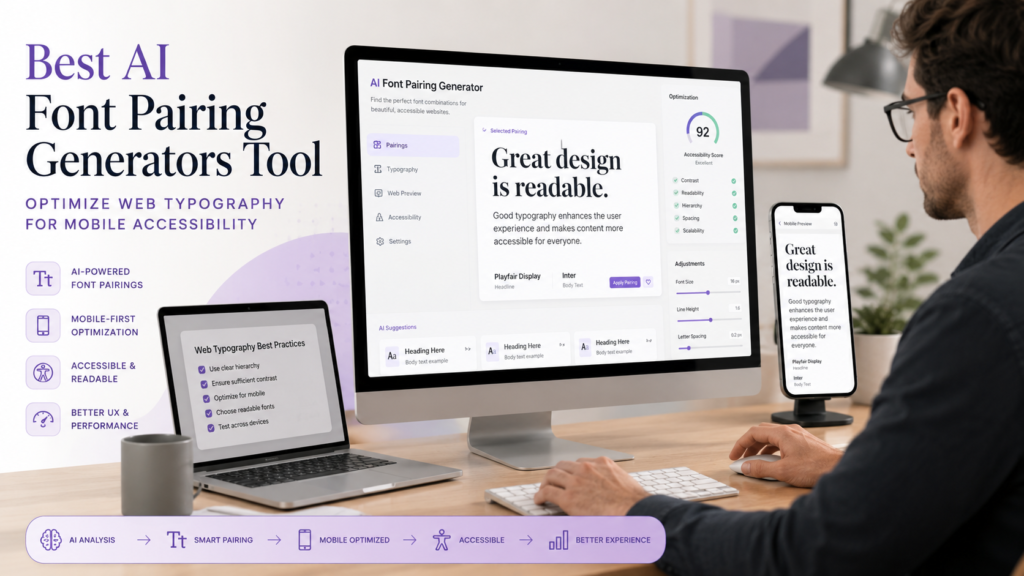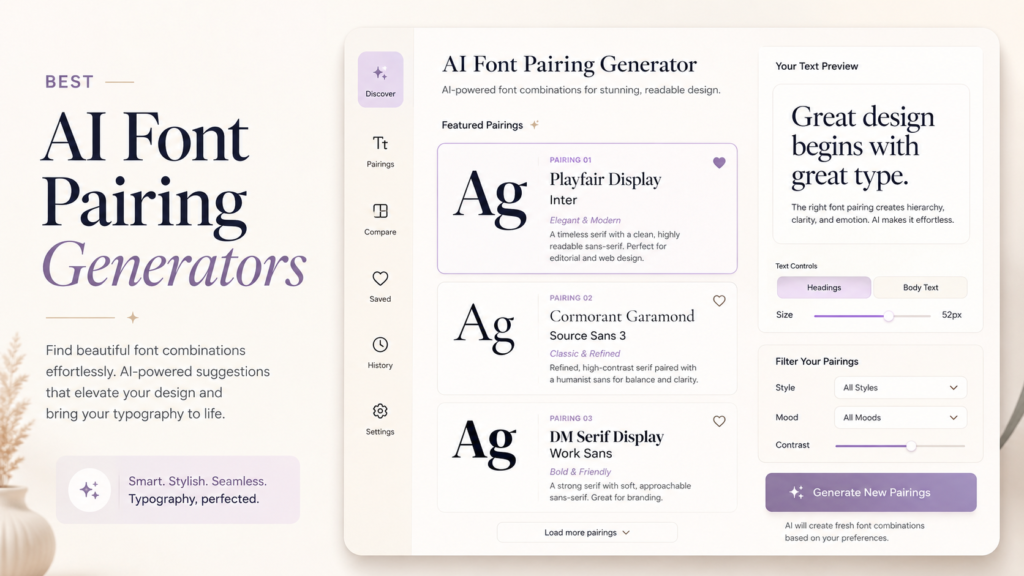
AI Font Pairing Generators: Ultimate Guide & Best Tools
AI Font Pairing Generators Tool: The Ultimate Proven Guide for Designers
Finding the perfect font pairing used to be a tedious, eye-straining ritual of endless scrolling through Adobe or Google Fonts. Today, machine learning has changed the game. AI-powered font generators do the structural and mathematical heavy lifting in seconds, letting you skip the guesswork and focus on actual design layouts.
These intelligent systems analyze letterforms, x-heights, and stroke contrasts in mere milliseconds. They effectively eliminate the guesswork from typography, allowing you to design with unshakeable confidence. As a result, designers can focus significantly more on the overarching creative vision rather than agonizing over minor typeface adjustments.
I remember staring at glowing screens until my eyes blurred, trying desperately to match a quirky serif with a neutral, geometric sans-serif. It was an exhausting, subjective process that often led to decision fatigue. Now, artificial intelligence does the heavy lifting with surgical, mathematical precision.
The Modern Case for AI-Driven Typography Assistants
Typography is not just about making words legible; it is about conveying emotion and establishing brand authority. A mismatch in your font choices can subconsciously repel your target audience. Conversely, harmonious typography builds immediate trust and enhances user experience.
Using an AI-driven typographic assistant ensures your font combinations automatically respect fundamental layout rules, without requiring you to manually measure x-heights or stroke widths. These algorithms are trained on thousands of successful, professional designs. They understand the delicate balance between concord, contrast, and conflict.
The Science Behind Machine Learning Fonts
When you use an AI generator, you are not just getting a random shuffle of popular fonts. The neural networks analyze the vector structures of the typefaces themselves. They map out the weight, width, and optical axes of every single letter.
By comparing these deep structural data points, the AI can predict which fonts will complement each other. It actively searches for pairs that share underlying geometric similarities while providing enough visual contrast to differentiate headers from body text. This scientific approach guarantees a visually pleasing hierarchy.
Overcoming Design Paralysis
One of the biggest hurdles in graphic design is the paradox of choice. With tens of thousands of fonts available online, selecting just two can feel incredibly overwhelming. This often leads to designers defaulting to the same safe, overused combinations.
An AI tool acts as a brilliant brainstorming partner that never gets tired. It pushes you out of your comfort zone by suggesting unexpected, yet highly effective pairings. You retain full creative control, but you start from a foundation of curated excellence.
Interface of the Best AI Font Pairing Generators Tool showing a seamless blend of serif headers and sans-serif body text
Top Features to Look For in an AI Typography Assistant
Not all AI design tools are created equal, and the market is becoming increasingly saturated. To find the truly elite platforms, you need to know exactly what technical features matter. Here is what the absolute best tools bring to the table:
• Deep Learning Algorithms: The tool should use advanced neural networks, not just pre-programmed static lists.
• Adjustable Contrast Sliders: You need the ability to dictate how similar or radically different the paired fonts should be.
• Real-Time Preview: Seeing the fonts applied to actual layouts or sample text is crucial for evaluating their real-world impact.
• Dark Mode Testing: Typography behaves differently on dark backgrounds, so built-in contrast testing is a major plus.
The Industry Leaders: Top AI Font Pairing Tools to Elevate Your Workflow
If you are ready to transition from theory to practice, several standout tools deserve a permanent spot in your design toolkit. These platforms leverage advanced machine learning to take the friction out of typographic selection, ranging from lightweight open-source generators to enterprise-grade powerhouse suites.
1. Monotype Fonts: The AI-Powered Industry Standard
When the world’s most prestigious type foundry integrates machine learning, the design world takes notice. Monotype Fonts has evolved far beyond a simple directory; it now features a highly sophisticated, AI-driven search and pairing engine designed for professional agencies and brand architects.
2. Are the fonts suggested by AI tools free to use commercially? It depends on the specific tool and the font library it pulls from. Always verify the individual licensing agreements (such as SIL Open Font License) before using any suggested font in a commercial project.
3. How does the AI determine if two fonts look good together? It uses neural networks to analyze the vector data of the fonts, comparing elements like x-height, stroke width, and geometric structure. It looks for harmonious similarities and pleasing contrasts based on its vast training data.